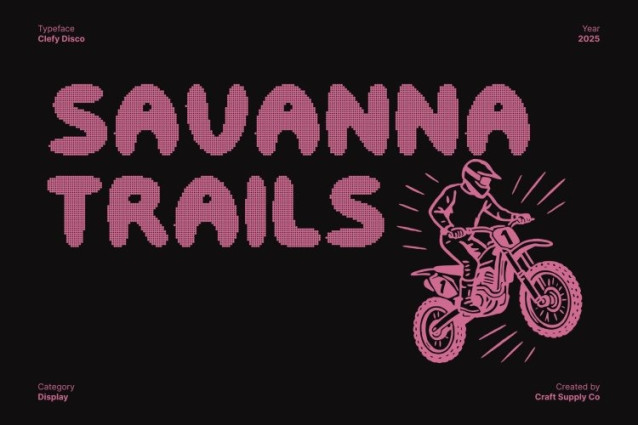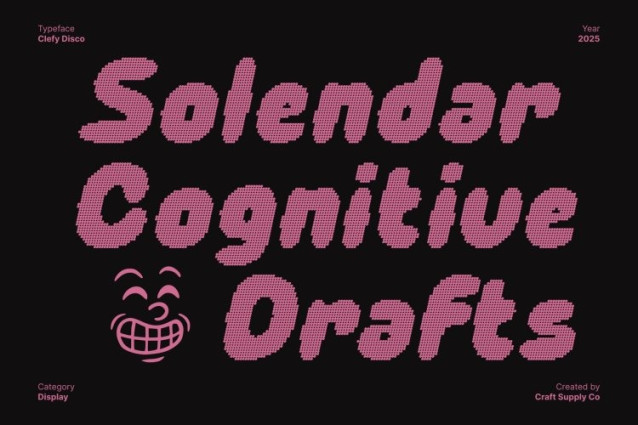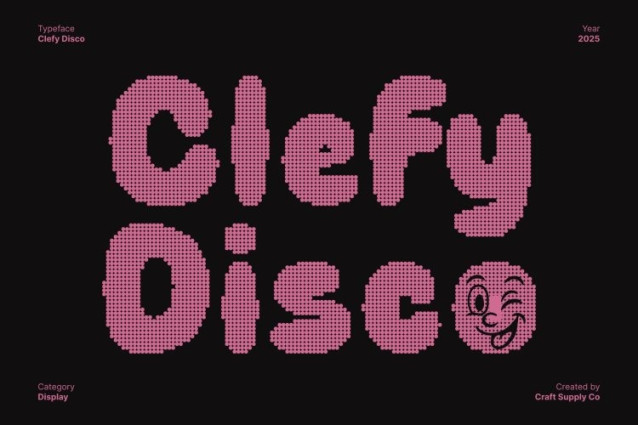
Clefy Disco Regular Font
Clefy Disco Regular Font is a bubble display font that captures the lively energy of disco culture. With its soft, rounded shapes and playful rhythm, this font radiates positivity and charm. Each letter feels like it’s bouncing to a beat, making this font perfect for designs that want to express fun, creativity, and movement.
Playful Energy with a Polished Touch
Despite its bubbly nature, this font maintains a sense of refinement and structure. Its balanced proportions and smooth curves bring harmony to every composition, giving designers the freedom to create layouts that feel both cheerful and cohesive. This balance of playfulness and polish makes it ideal for vibrant branding and youthful visual identities.
Perfect for Party and Music-Themed Designs
This font truly shines in designs that call for celebration. The disco-inspired flair adds a sparkling character, perfect for party posters, album covers, music event branding, and digital promotions. Its bold yet friendly style ensures that every headline or logo made with captures instant attention.
Versatile for Modern Creative Projects
From funky merchandise to event invitations and social media graphics, this font adapts to various creative needs. Its expressive shapes and rhythmic flow make it a joyful choice for designers seeking to add excitement and uniqueness to their visual projects.